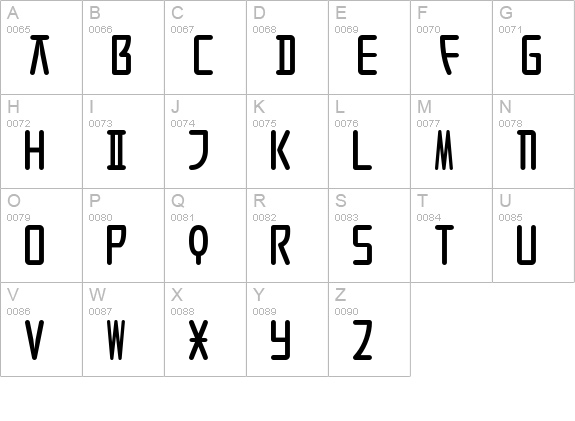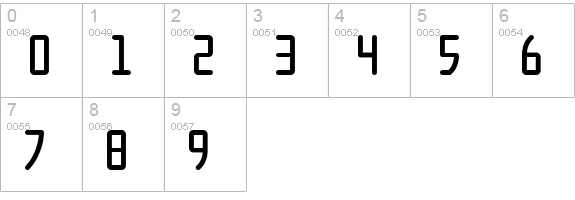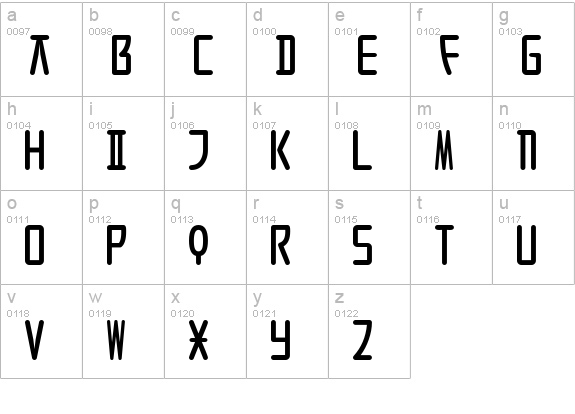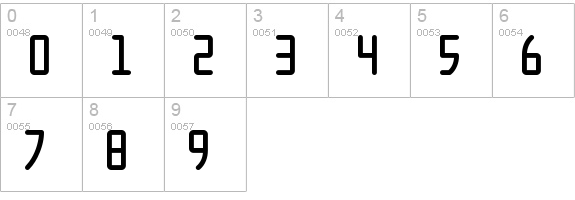
SeoulCaps Alt Font Details
SeoulCaps Alt font is a modern and stylish typeface that exudes sophistication and elegance. With its sleek lines and sharp edges, this font is perfect for creating eye-catching designs that demand attention. The unique alternates and captivating uppercase characters of SeoulCaps Alt font add a touch of creativity to any project. And the best part? SeoulCaps Alt font is completely free to download at FontsMarket.com! Whether you're designing a logo, poster, or website, this versatile font will elevate your work to the next level. Don't miss out on the opportunity to enhance your designs with the stunning SeoulCaps Alt font – download it for free today!